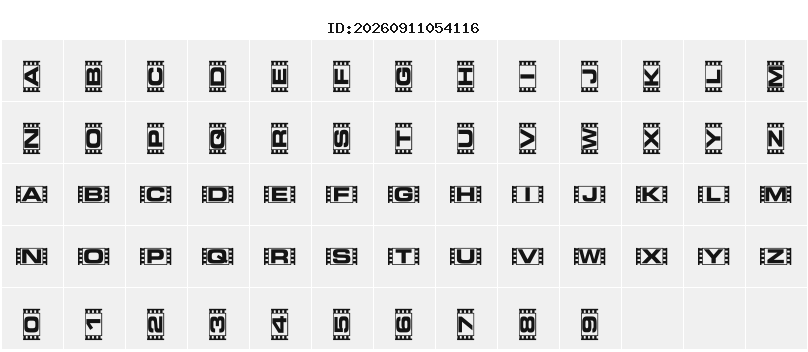
Vedette Blanche Preview
• Font Name: Vedette Blanche
• Font Style: Blanche
• Full Font Name: Vedette Blanche
About Vedette Blanche.ttf
Vedette Blanche.ttf is a modern, elegant sans-serif font designed for ultimate readability and visual harmony. Perfect for branding, headlines, web design, and print materials.